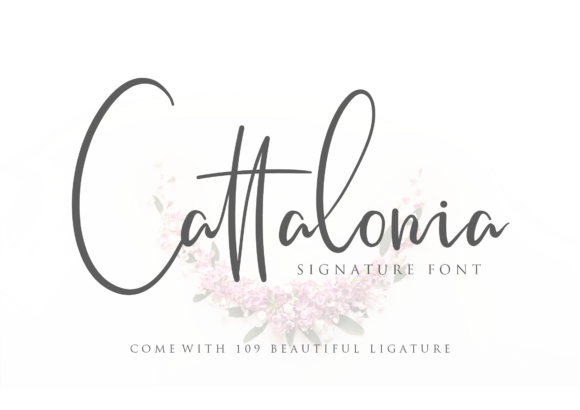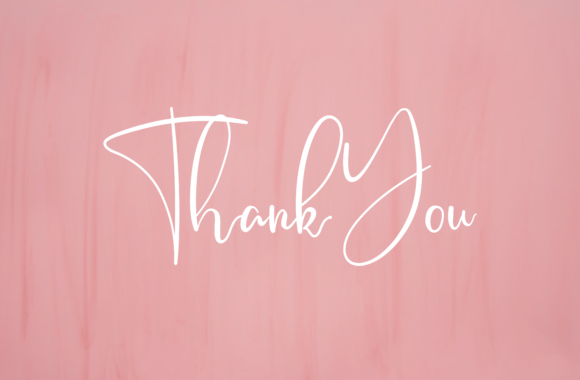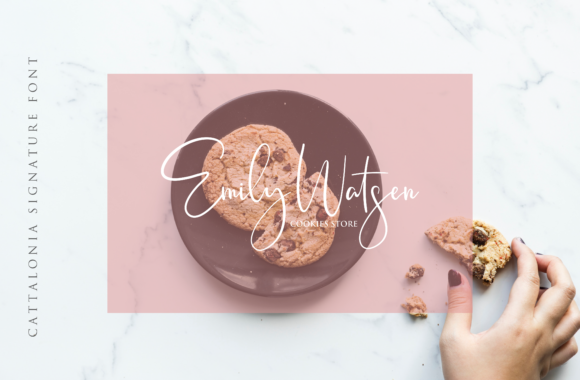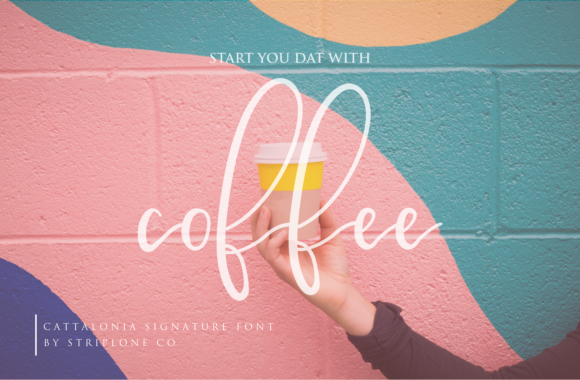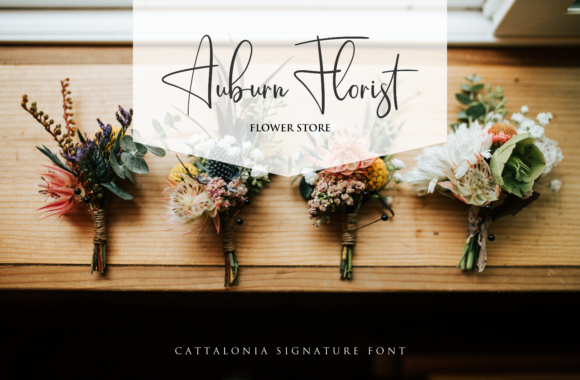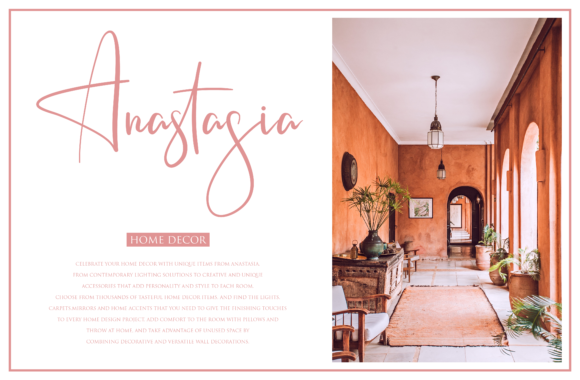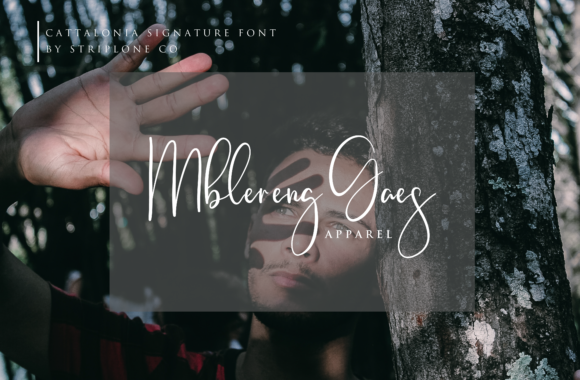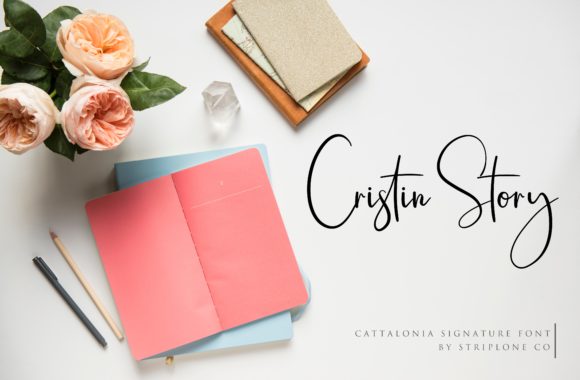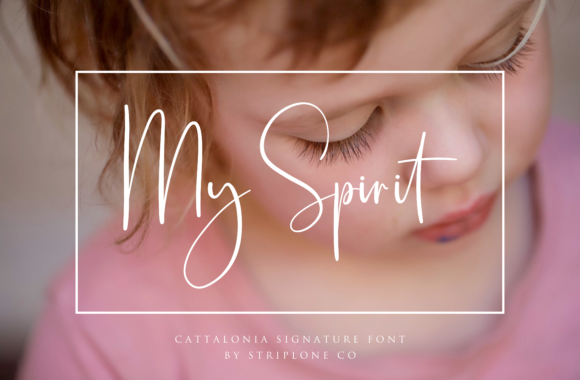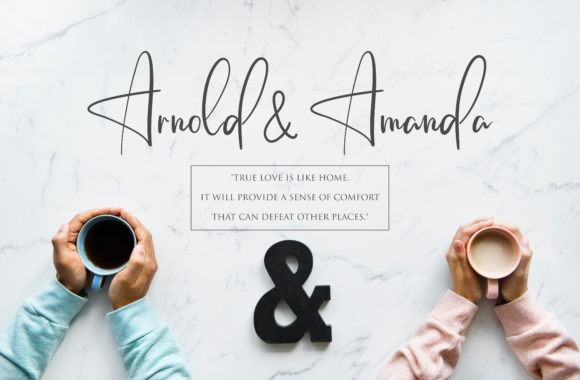
Cattalonia Font
About Cattalonia Font
The Cattalonia is a signature typeface with natural curves and shapes. It can be used for various purposes such as: watermarks, branding, logos, and much more!